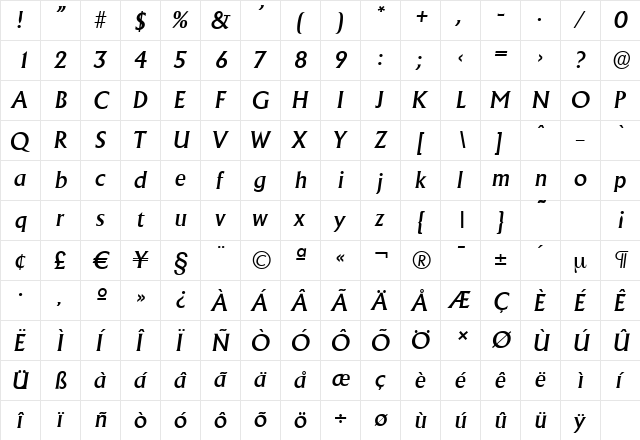
AdelonSerial-Medium Italic
Design Context for AdelonSerial-Medium Typeface
AdelonSerial-Medium takes a measured approach to typography — its balanced proportions and neutral character make it a reliable workhorse for both digital and print work. Its italic angle brings a sense of urgency and motion to the letterforms.
Pro Tip: Use AdelonSerial-Medium for emphasis, pull quotes, and subheadings where its slanted energy can add rhythm to the layout.